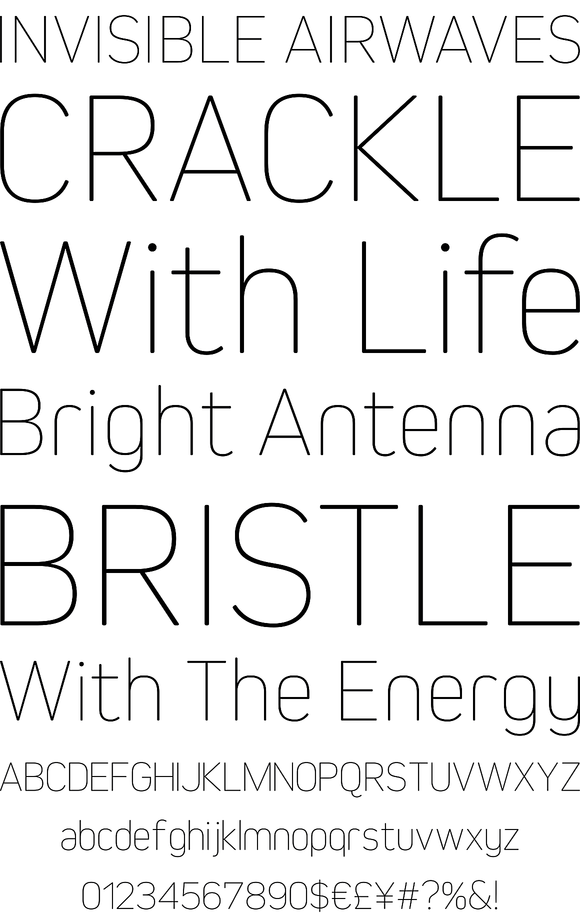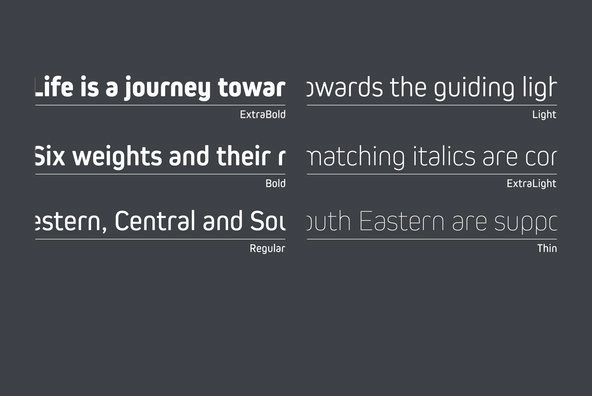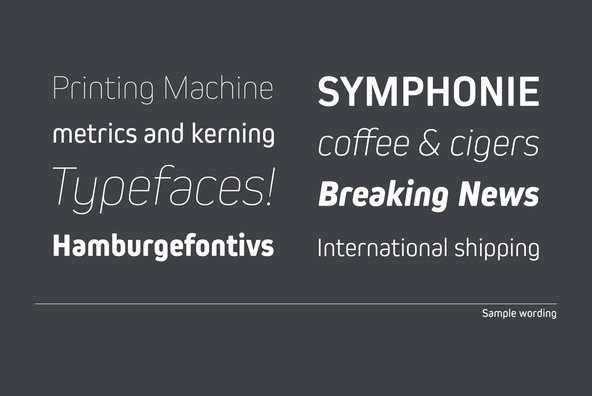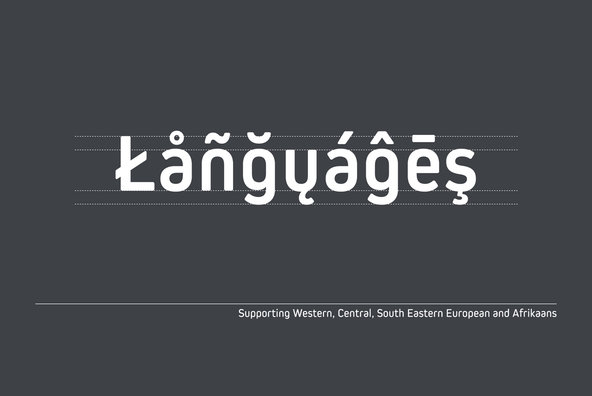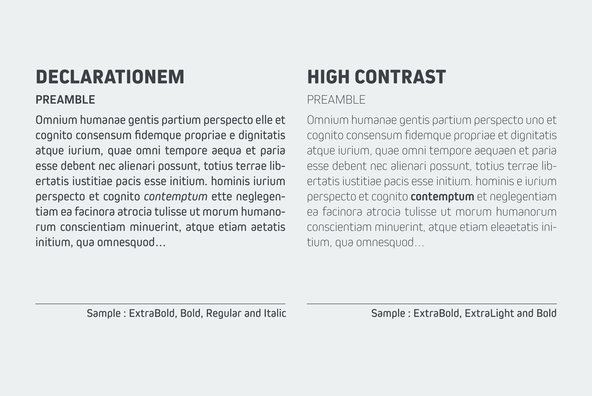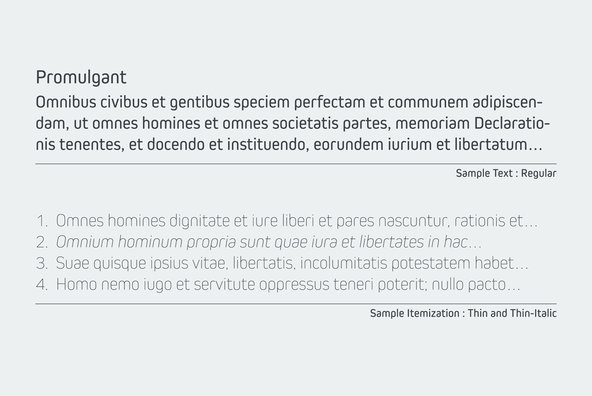
Kiro Font
Kiro is a minimal, simple condensed sans-serif family designed by Ryoichi Tsunekawa and the whole family consists of 12 style: six weights from Thin to ExtraBold and their matching Italics. The range of styles provides flexibility for title, headline and body text. And the large x-heights gives them legibility and readability.
The basic skeleton was designed semi-modularly and the letterform was minimalized by removing their unnecessary stems. Their corners were finished with subtle rounded effect.
The minimalized semi-modular design gives this family contemporary urbane taste and rounded corners make this family warm and friendly.
Kiro supports almost all European languages: Western, Central, South Eastern Europeans and afrikaans. And superior figures, inferior figures, denominators, numerators and fraction can be accessed by using OpenType features.